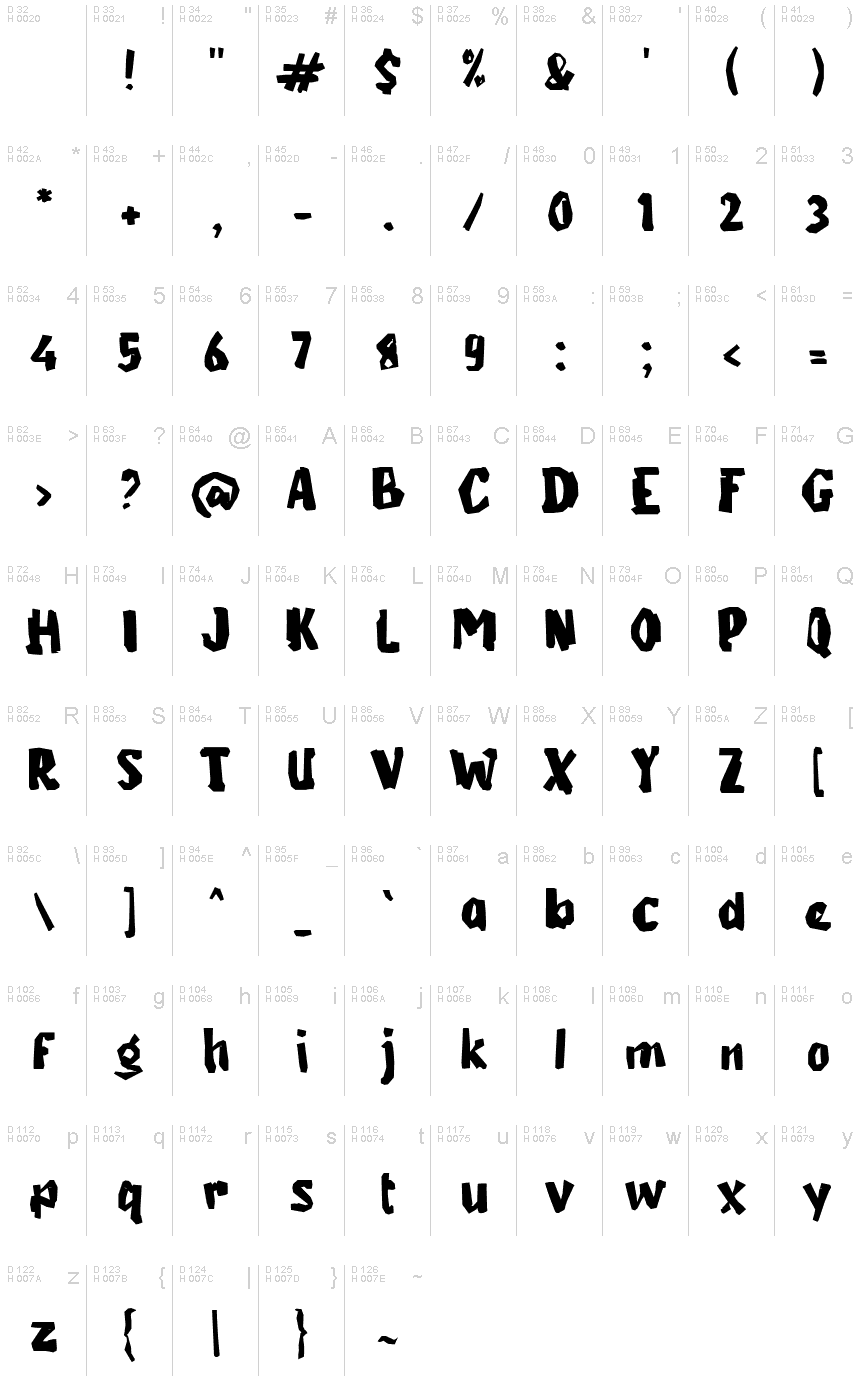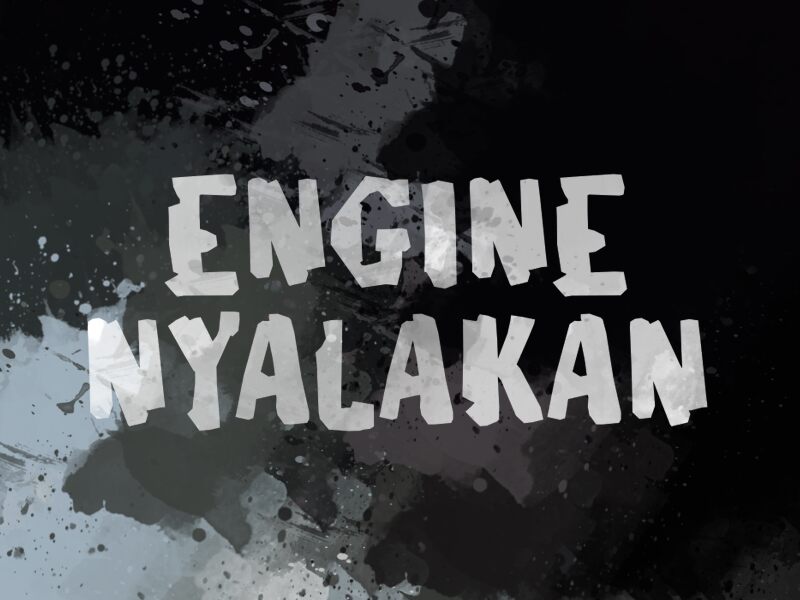
ENGINE NYALAKAN
Engine Nyalakan, designed by Wahyu Eka Prasetya, is a bold, distorted display font that is perfect for adding a unique and edgy touch to your design projects. Its rugged, grungy style makes it ideal for poster designs, album covers, and other music-related graphics, as well as logos and branding for tech startups and other cutting-edge companies. Let Engine Nyalakan bring some extra energy and excitement to your next project.